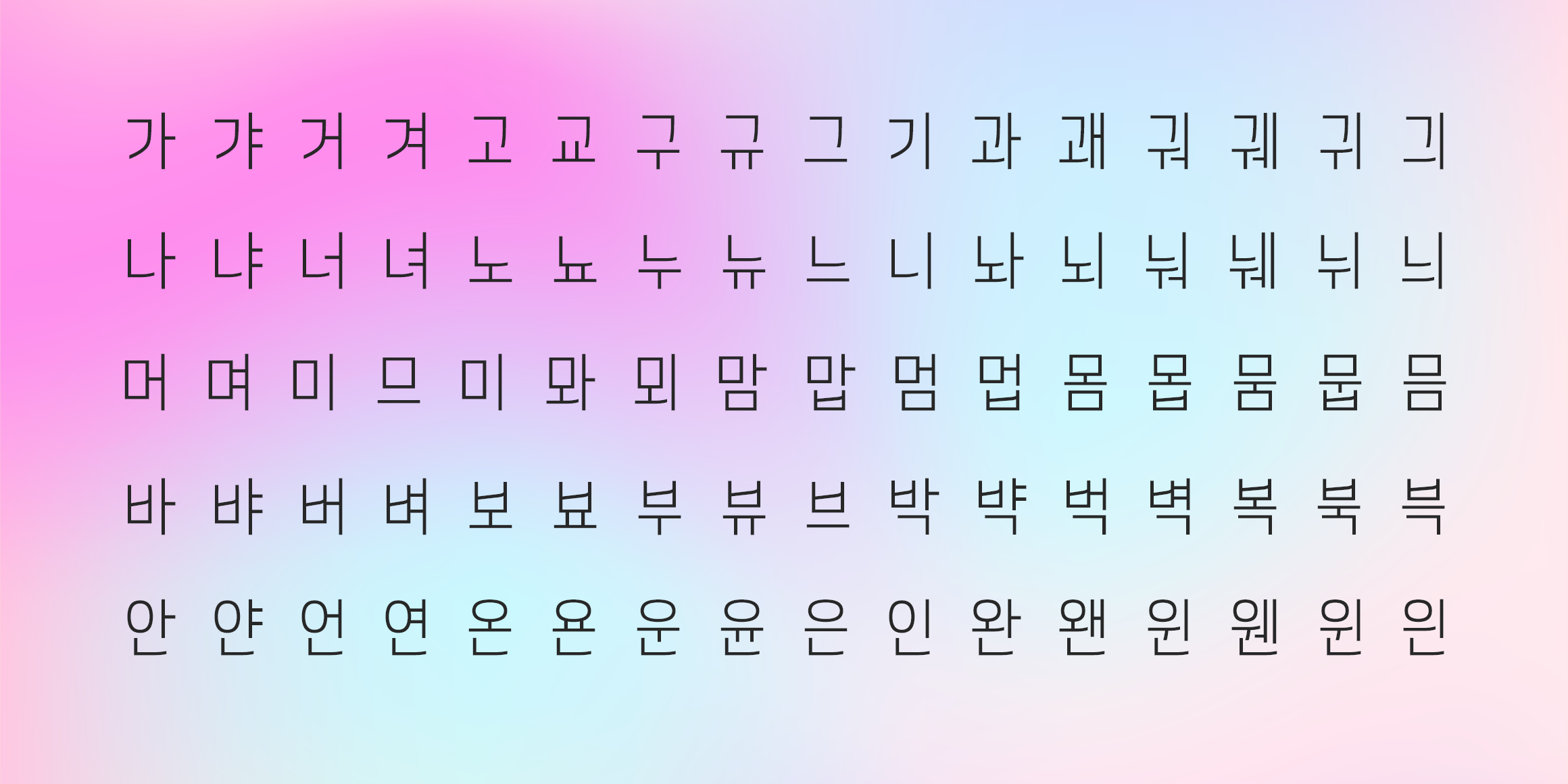
210 Ssiat
It is a neat font based on Gothic, and the dividing parts of the initial consonants 'ㅅ', 'ㅈ', and 'ㅊ' are curved to give a soft impression.
A long font module was designed, and readability was improved by maintaining a balance between the space and margins of each character element. It is a font that can be used in a variety of design fields by designing it to be stable when typesetting.
- 210 씨앗 / 210 Ssiat